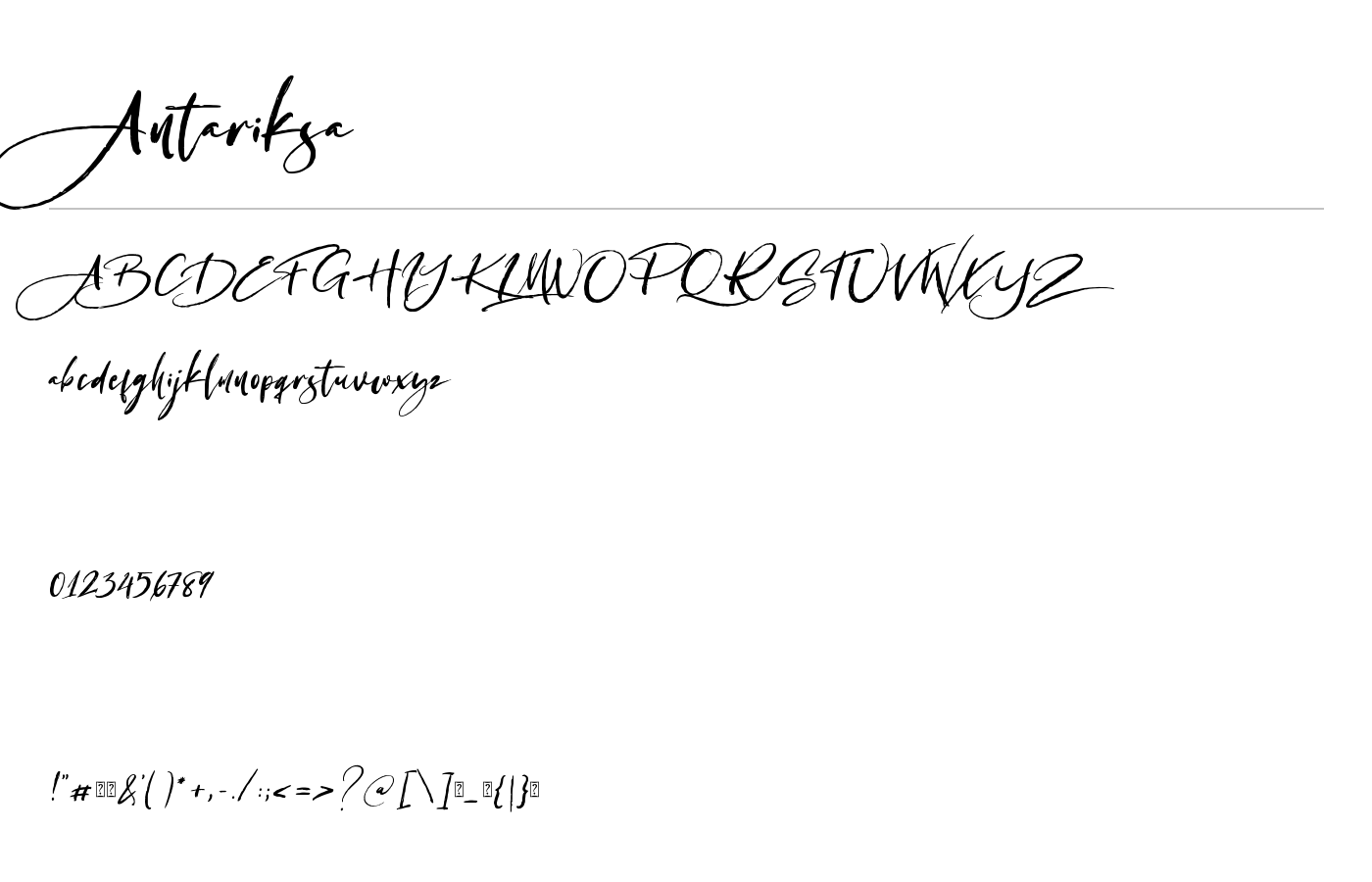
Antariksa is an elegant, calligraphic script font featuring fluid, expressive strokes with varied thickness that create a stylish, hand-drawn feel. Its tall, slender letterforms and cursive flow make it perfect for sophisticated branding, invitations, and creative headlines where a personal, artistic touch is desired. This font brings charm and personality, ideal for fashion, luxury, or boutique designs.
Antariksa Font
About Antariksa Font
| Font family | Antariksa Font |
| Designer | Abo Daniel 2019 |